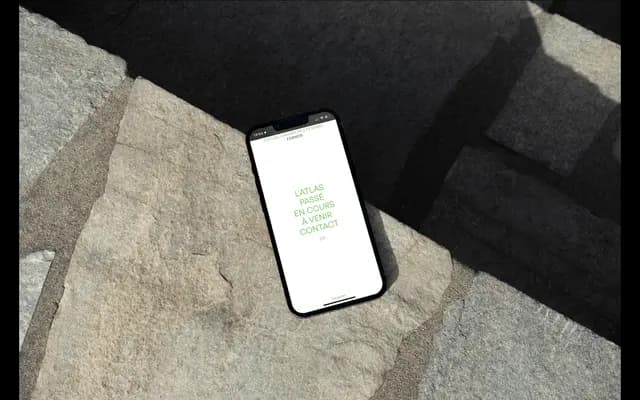
Polar Mono specimen from Frost
A monospaced family spanning 13 weights from Hairline to Black, offered in both strict Mono and Semi Mono variants across 26 styles.
Each weight ships in two spacing variants: a strict fixed-pitch Mono and a Semi Mono with slightly relaxed proportions, giving the family practical range across both editorial and technical contexts. The 13-weight ladder runs from an extreme Hairline and Skeleton through to Black, making it one of the more exhaustively graded mono families available from an independent foundry. The Skeleton weight, sitting at the light extreme, is an outlined or inline variant that adds a display option to the range.
A monospaced typeface offered in both a strict mono and a semi-mono variant across 13 weights, placing it firmly in the mono category with geometric construction evident in its even spacing and clean forms.